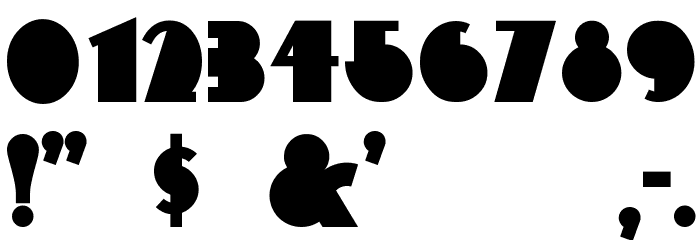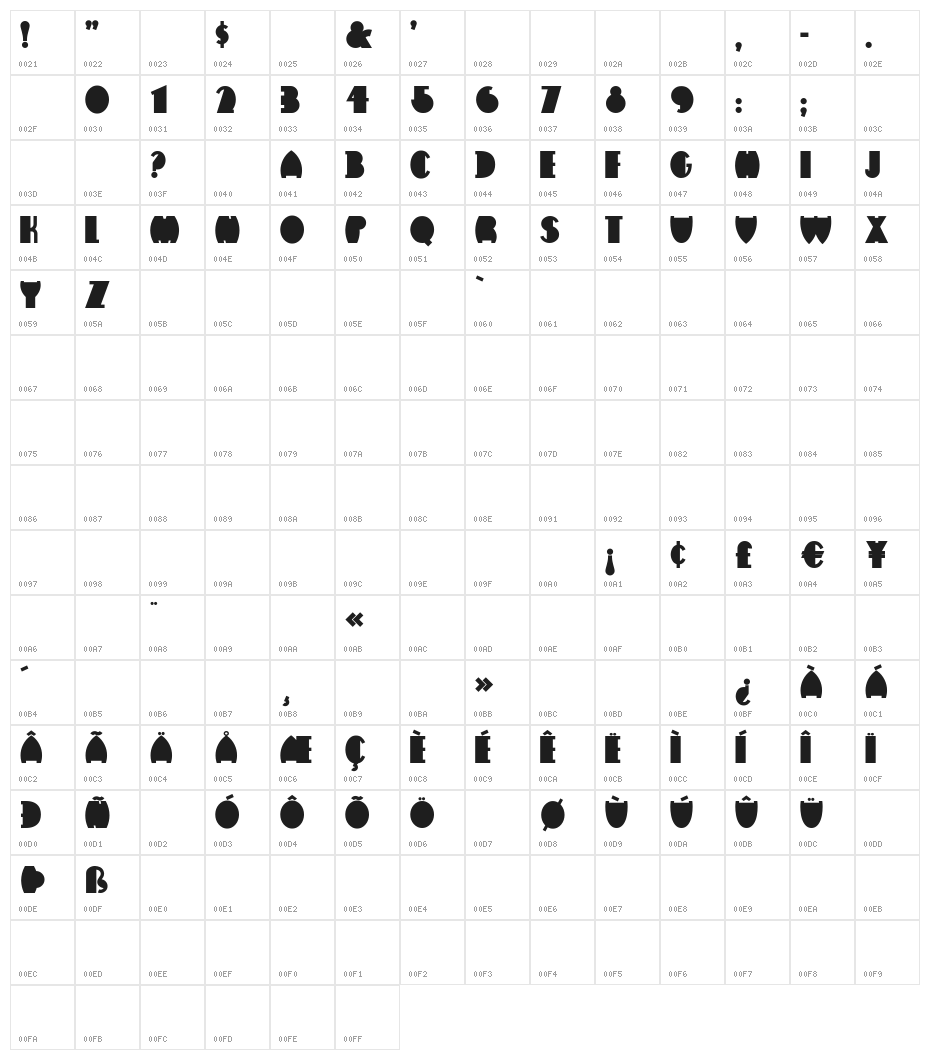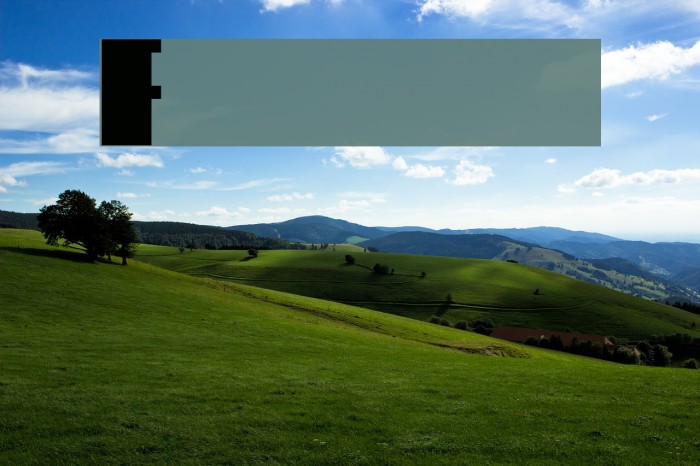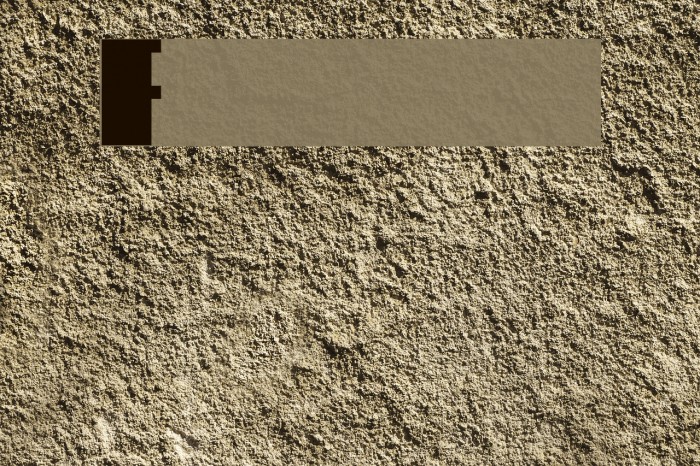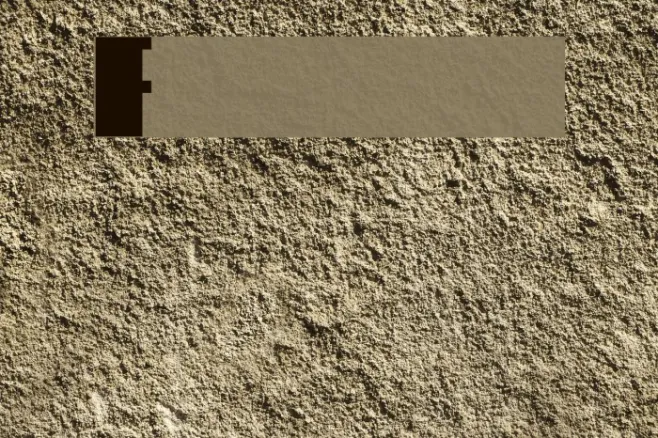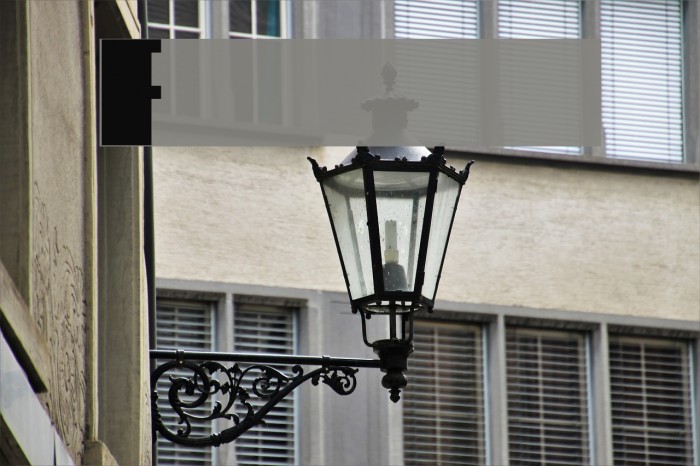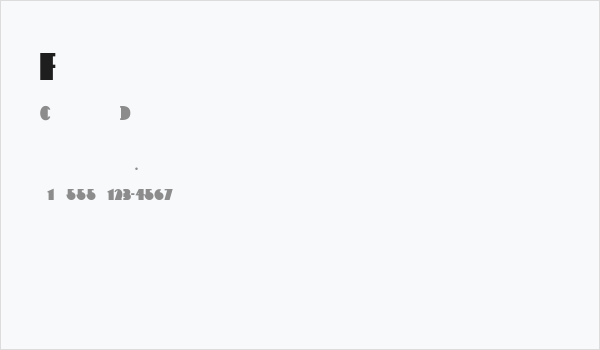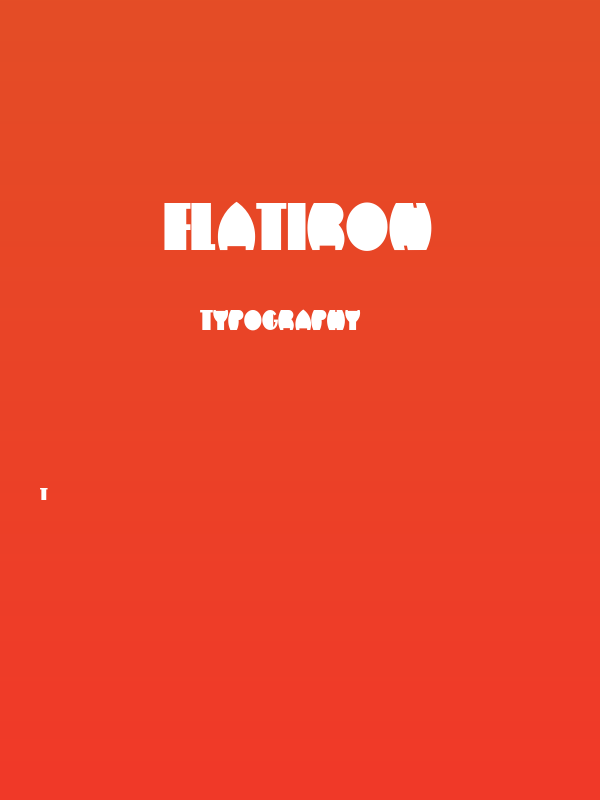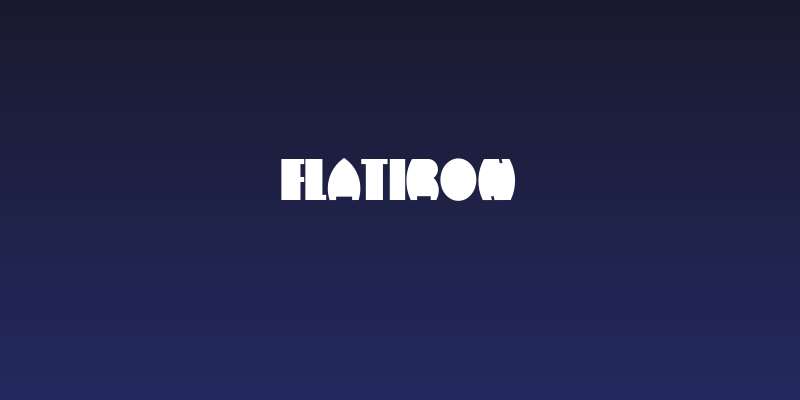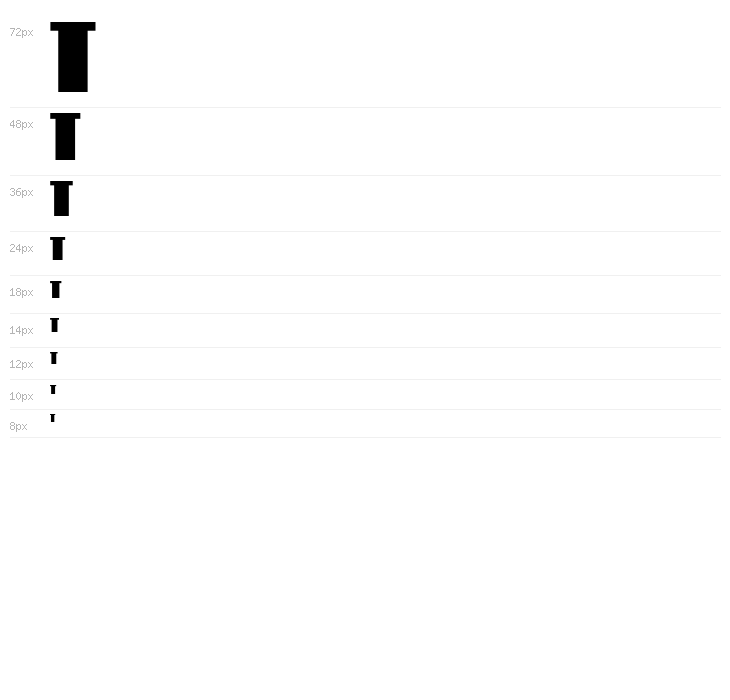
Flatiron Font
Flatiron Description
This bold and striking font features thick, geometric letterforms with a strong presence. The characters are designed with a unique, blocky style that gives them a modern and impactful look. The uppercase letters are particularly wide and imposing, while the numbers and special characters maintain the same bold aesthetic. The font's design is consistent throughout, with a focus on creating a powerful visual statement. Its distinct style makes it ideal for projects that require a strong, attention-grabbing typeface.
Proposed ProjectsIdeal for posters, headlines, branding, and any design needing a bold statement.